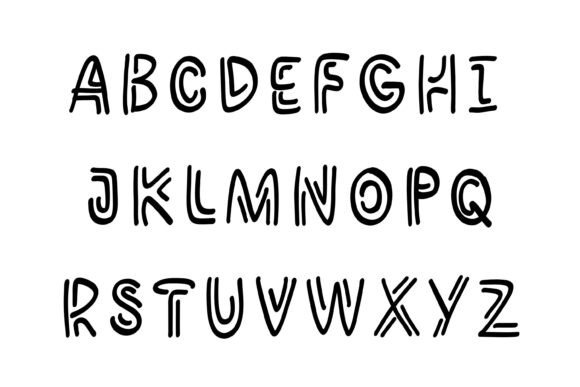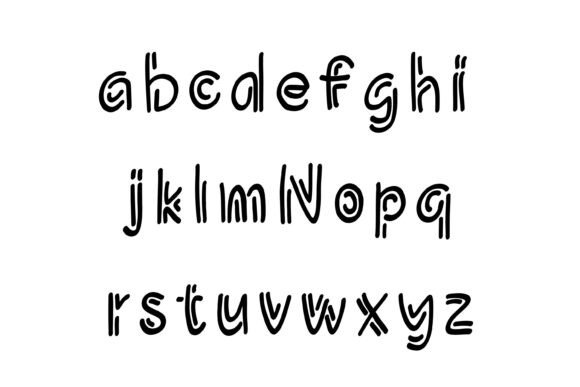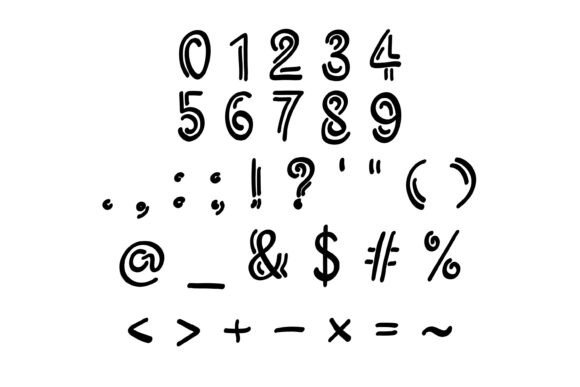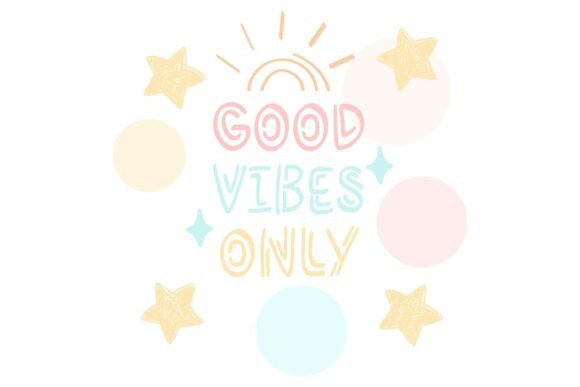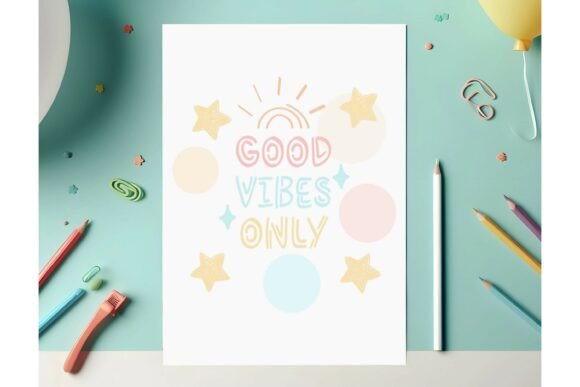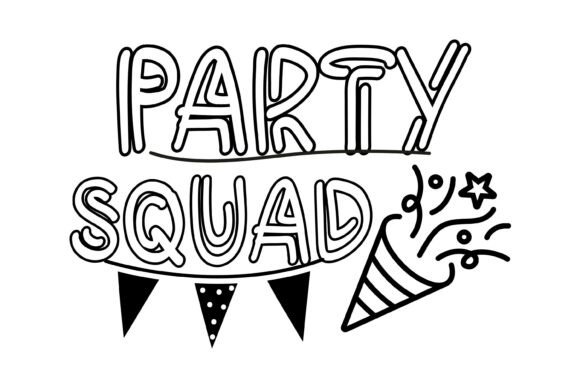
Introduction to Halo Stroke Font
As a designer, have you ever found yourself struggling to bring a playful, whimsical touch to a project? Maybe you’re working on a children’s book, a birthday invitation, or a social media graphic that needs a little extra oomph. That’s where the Halo Stroke Font comes in – a delightful handwritten outline display font that’s perfect for adding a touch of fun and personality to your creative projects.
With its bouncy, rounded letters and adorable “halo” stroke, the Halo Stroke Font is a design resource that’s sure to make your projects stand out. Whether you’re working on a sticker design, a Cricut craft, or a logo for a kids’ brand, this high-quality font is a must-have for any designer looking to add a touch of whimsy to their work. And the best part? It’s available for free download, making it an absolute game-changer for anyone looking to elevate their design game.
Key Features of Halo Stroke Font
- High-quality design resource suitable for creative projects, available for free download.
- Unique Halo Stroke Font style with a delicate, hand-drawn feel, perfect for adding a touch of elegance to your designs.
Honest Review: Halo Stroke Font
I recently stumbled upon the Halo Stroke Font, and I must say it’s been a game-changer for my creative projects. The font is a high-quality design resource that offers a lot of flexibility, making it perfect for a wide range of uses.
One of the standout features of this font is its versatility. ✨ It can be used for both digital and print projects, and it’s available for free download, which is a huge plus. The font’s transparent background also makes it easy to customize and use in various design scenarios.
Here are some of the things I love about the Halo Stroke Font:
- ✨ Versatile and can be used for both digital and print projects
However, I do have to mention a few limitations:
- ⚠️ Limited character set, which may not be ideal for projects that require a wide range of characters
- ⚠️ Not suitable for projects that require a lot of bold or italic text
Overall, I’m really impressed with the Halo Stroke Font. It’s a great addition to any designer’s toolkit, and I would definitely recommend it to anyone looking for a high-quality design resource.
Halo Stroke Font
The Halo Stroke Font is a high-quality design resource perfect for your next creative project. You can download it for free and use it in various applications. This font features a unique stroke design and transparent background, making it ideal for backgrounds, titles, and other design elements.
For the most out of the Halo Stroke Font, use it as a background or overlay to add texture and depth to your design. You can also experiment with different font sizes, colors, and styles to create a unique look.
The Halo Stroke Font is ideal for creative projects such as:
- Backgrounds and overlays
- Titles and headings
- Graphics and illustrations